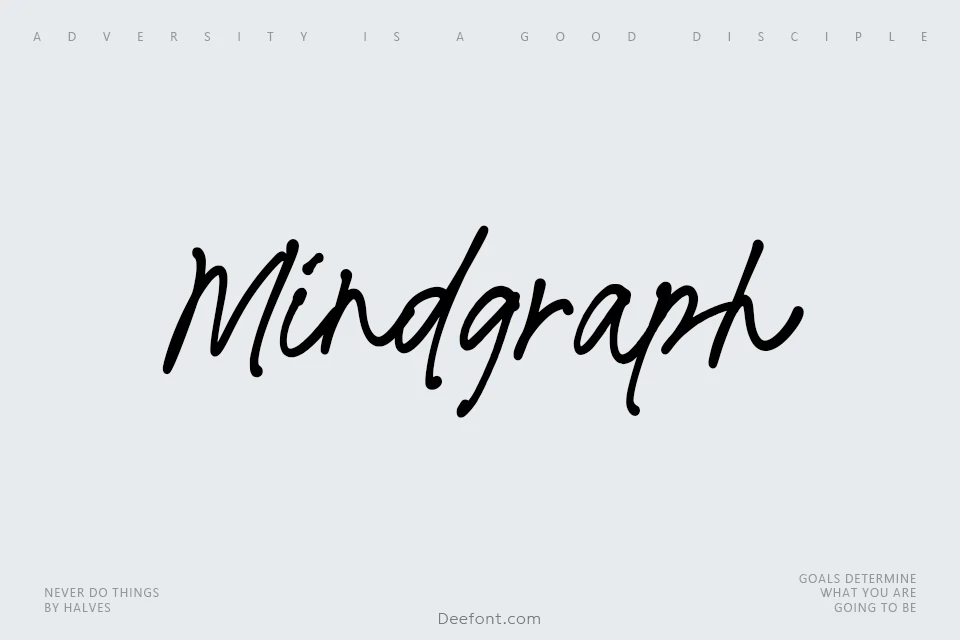
Mindgraph Font
Mindgraph Font is a refined handwritten signature font designed by Balpirick Studio. With its clean, elegant, and slightly slanted cursive style, it is perfect for branding, logos, invitations, and a wide range of creative projects.